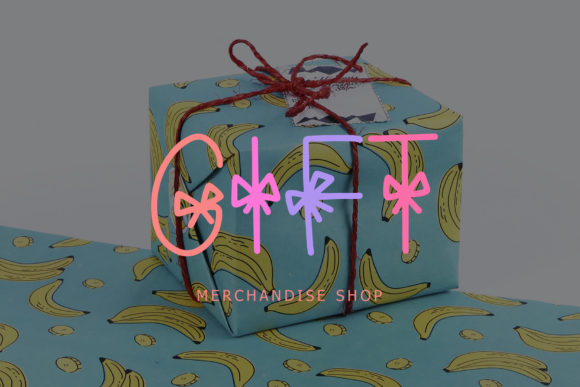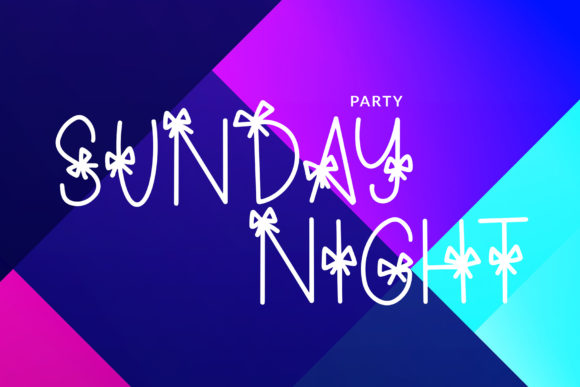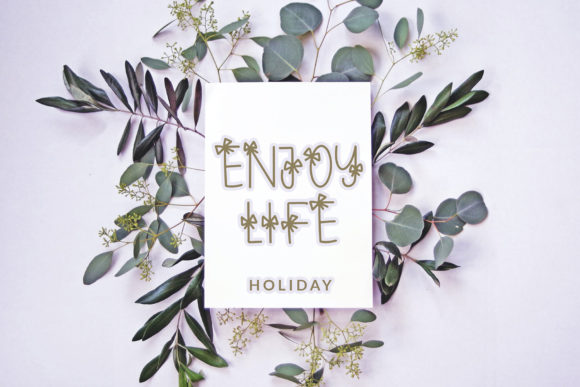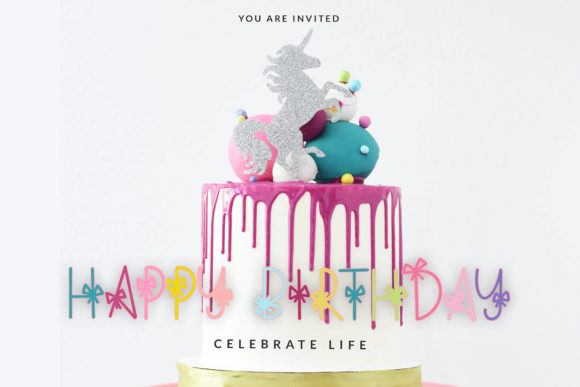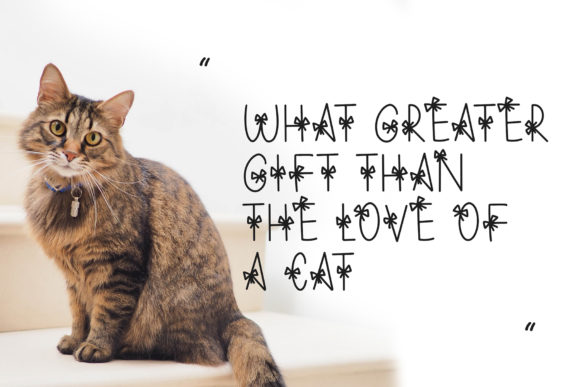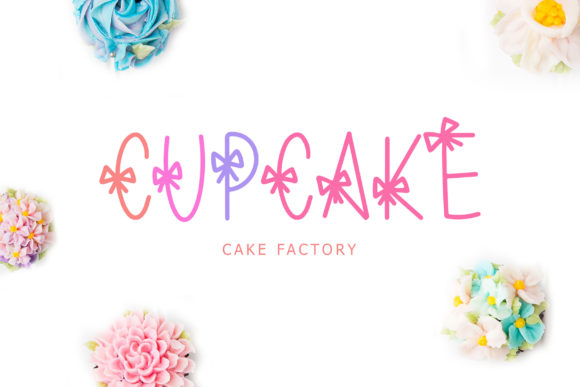
Bapo Font: The Ultimate Display Font for Kid-Themed Designs
Are you a designer or crafter looking for a unique and eye-catching font to make your kid-themed designs stand out? Look no further than Bapo Font! This exciting display font is perfect for a wide range of projects, from branding and logos to T-shirt designs, book covers, and social media posts.
What Makes Bapo Font So Special?
Bapo Font is a one-of-a-kind display font that is specifically designed to add a touch of fun and playfulness to your designs. Its unique and quirky style makes it perfect for kid-themed projects, and its versatility ensures that it can be used in a variety of contexts. Whether you’re creating a logo, designing a book cover, or crafting a social media post, Bapo Font is sure to make your design stand out from the crowd.
As a designer or crafter, you know how important it is to have a font that is both stylish and functional. Bapo Font ticks all the boxes, with a range of features that make it perfect for a wide range of projects. Some of the key benefits of using Bapo Font include:
- Unique and eye-catching style: Bapo Font has a distinctive and playful style that is sure to grab attention.
- Highly versatile: Bapo Font can be used in a wide range of projects, from branding and logos to T-shirt designs, book covers, and social media posts.
- Easy to read: Despite its playful style, Bapo Font is easy to read, making it perfect for designs that need to communicate a message.
- Scalable: Bapo Font is highly scalable, making it perfect for designs that need to be used in a variety of contexts, from business cards to billboards.
Project Ideas for Bapo Font
So, what can you create with Bapo Font? The possibilities are endless! Here are some project ideas to get you started:
- Branding projects: Use Bapo Font to create a unique and eye-catching brand identity for your business or client.
- Logo design: Create a memorable and playful logo that showcases your brand’s personality.
- T-shirt designs: Use Bapo Font to create fun and quirky T-shirt designs that kids will love.
- Book cover design: Create a eye-catching book cover that will stand out on the shelves.
- Social media posts: Use Bapo Font to create engaging and playful social media posts that will grab attention.
- Advertisements: Create eye-catching ads that showcase your product or service in a fun and playful way.
- Product packaging: Use Bapo Font to create unique and eye-catching product packaging that will stand out on the shelves.
- Product designs: Create fun and playful product designs that kids will love.
- Labels and watermarks: Use Bapo Font to create custom labels and watermarks that add a touch of personality to your designs.
- Invitations and stationery: Create custom invitations and stationery that showcase your personal style.
- Experiment with different colors and textures: Bapo Font looks great in a variety of colors and textures, so don’t be afraid to experiment and find the perfect combination for your design.
- Use it in combination with other fonts: Bapo Font pairs well with a range of other fonts, so try combining it with other fonts to create a unique and eye-catching design.
- Play with different sizes and styles: Bapo Font is highly scalable, so try using it in different sizes and styles to add visual interest to your design.
Bapo Font is a unique and eye-catching display font that is perfect for kid-themed designs. Its playful and quirky style makes it perfect for a wide range of projects, from branding and logos to T-shirt designs, book covers, and social media posts. With its high versatility, ease of use, and scalability, Bapo Font is a must-have font for designers and crafters. So why wait? Download Bapo Font today and start creating fun and playful designs that kids will love!